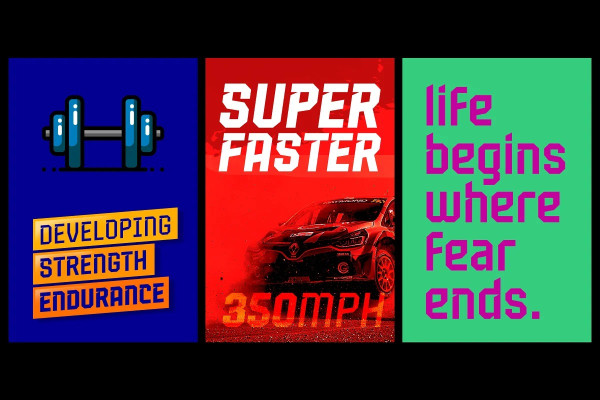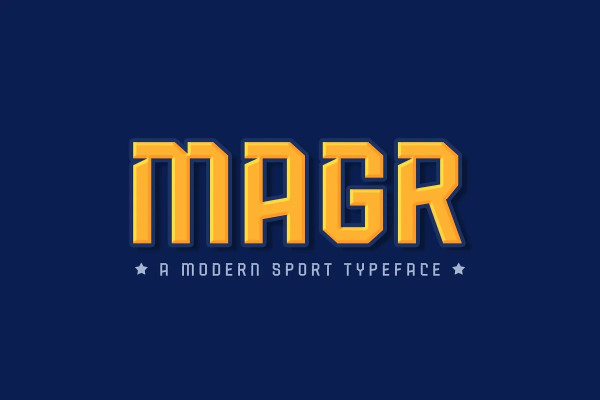
Magr Sport Font
Magr Sport Font, is a modern and powerful sans font designed to elevate your sports team and athletic designs. With its sleek and dynamic appeal, Magr brings a professional touch to your projects, leaving a lasting impression.
Unlock your creativity with Magr’s six styles and twelve fonts, including both upright and italic options. Stand out from the crowd and make a bold statement with this versatile font that complements your sports-themed materials.
Whether it’s for posters, jerseys, or any athletic graphic, Magr’s sharp and captivating design ensures your text commands attention. Upgrade your sports branding and visuals with Magr, and watch your designs soar to new heights.